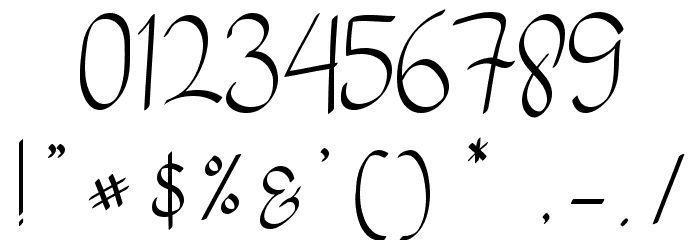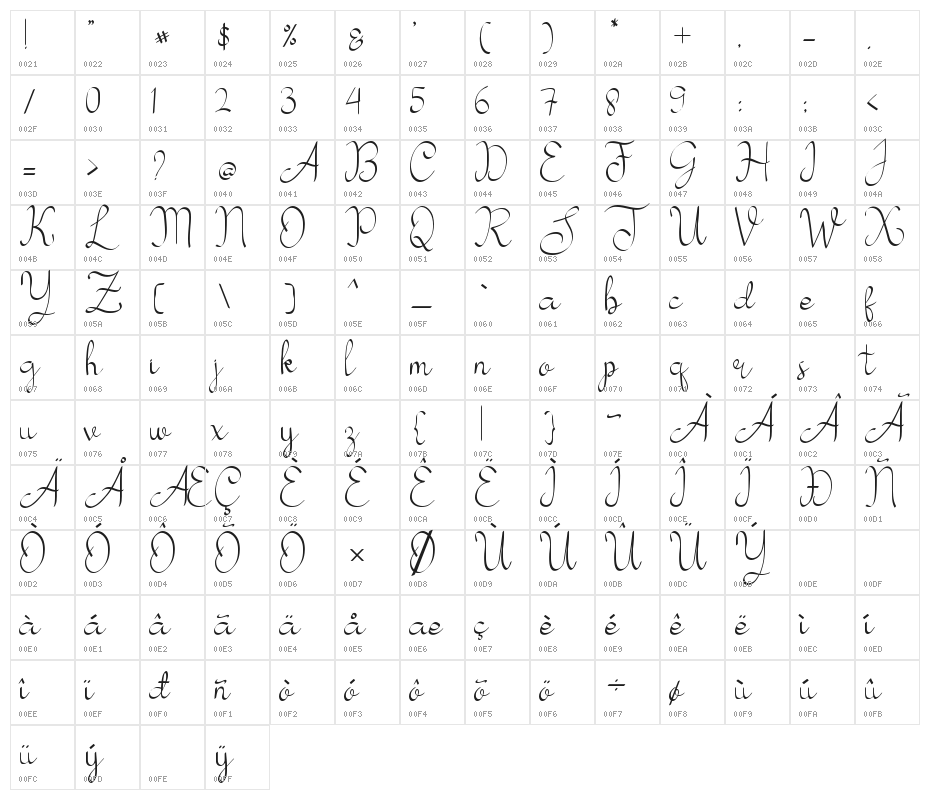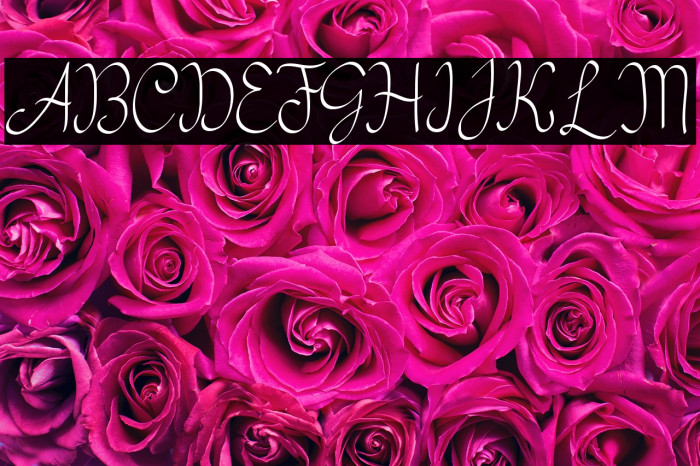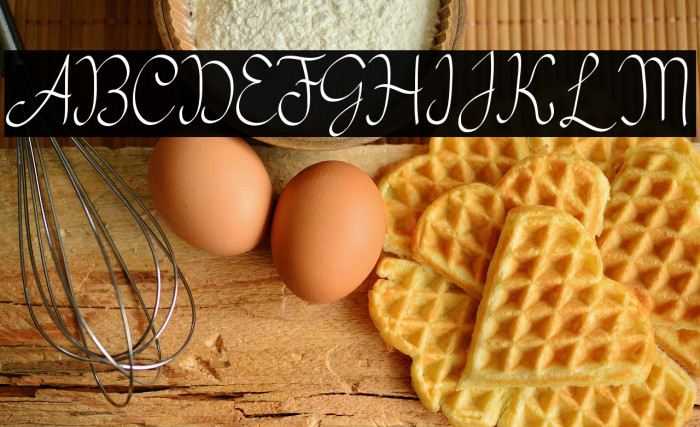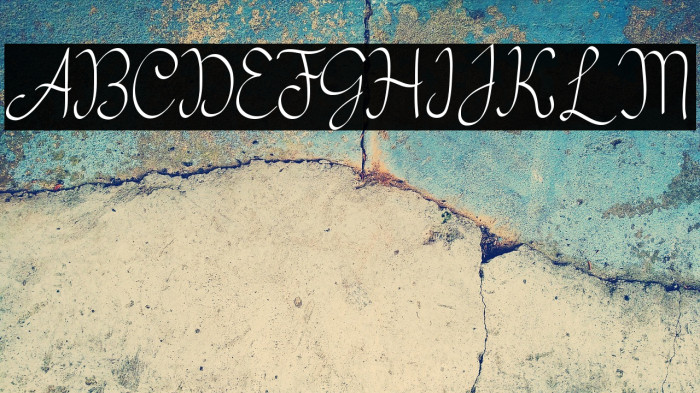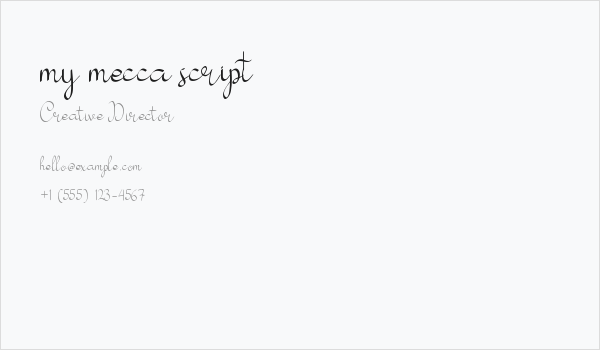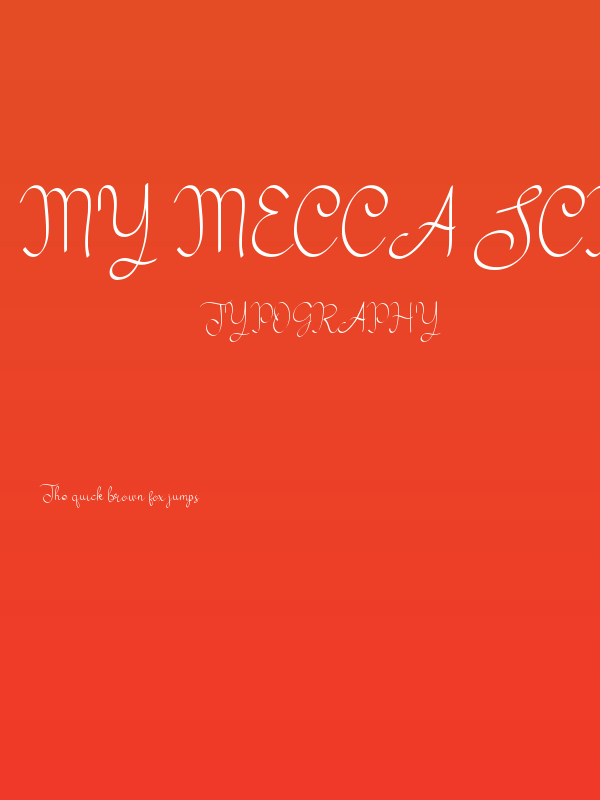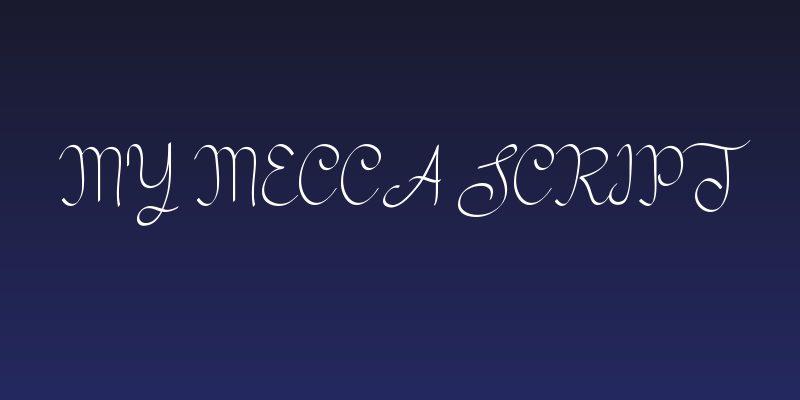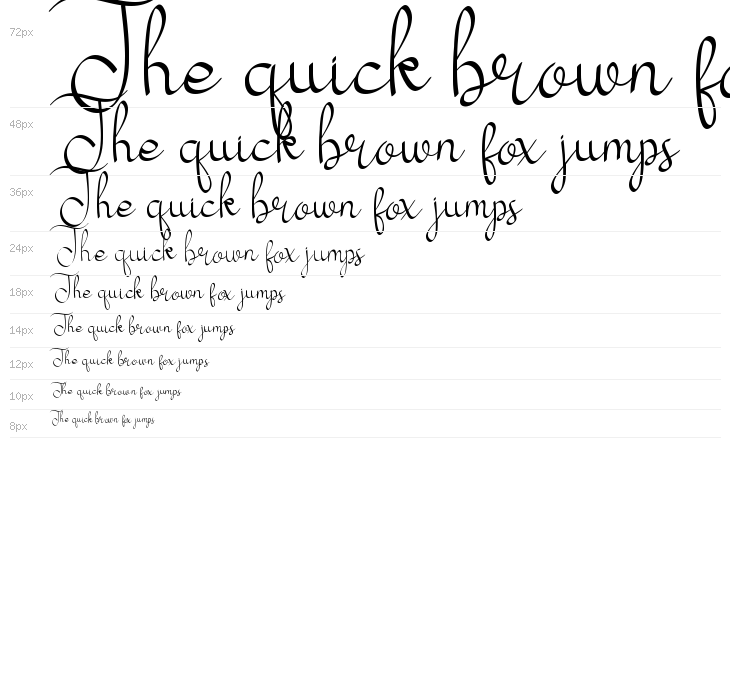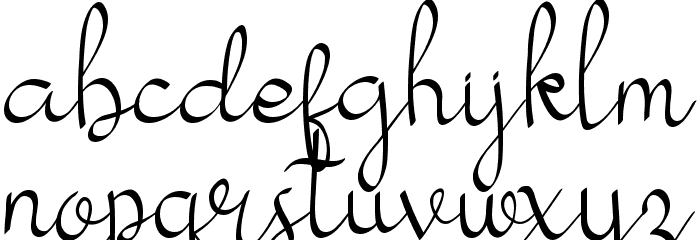
my mecca script Font
my mecca script Description
This elegant script font features a flowing, cursive style with smooth, connected strokes. The uppercase letters are characterized by their graceful loops and swirls, while the lowercase letters maintain a consistent fluidity that enhances readability. The numerals are distinct yet harmonize well with the overall script style. Special characters are thoughtfully designed to match the font's aesthetic, making it versatile for various uses. The font's delicate lines and artistic flair make it suitable for projects that require a touch of sophistication and elegance.
| Use Case | Headlines, Invitations, Logos |
| Proposed Projects | Ideal for wedding invitations, greeting cards, elegant branding, and decorative headings. |